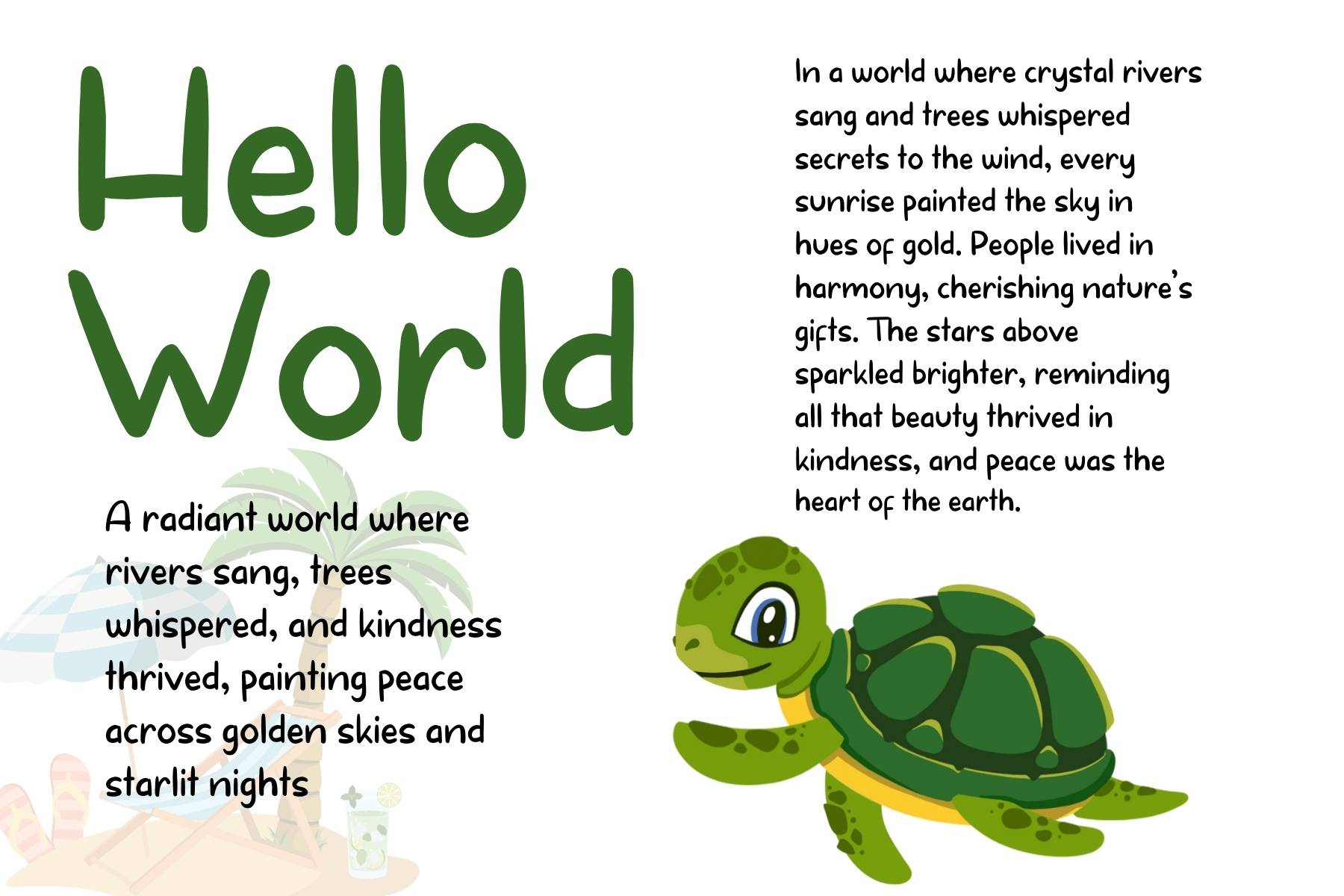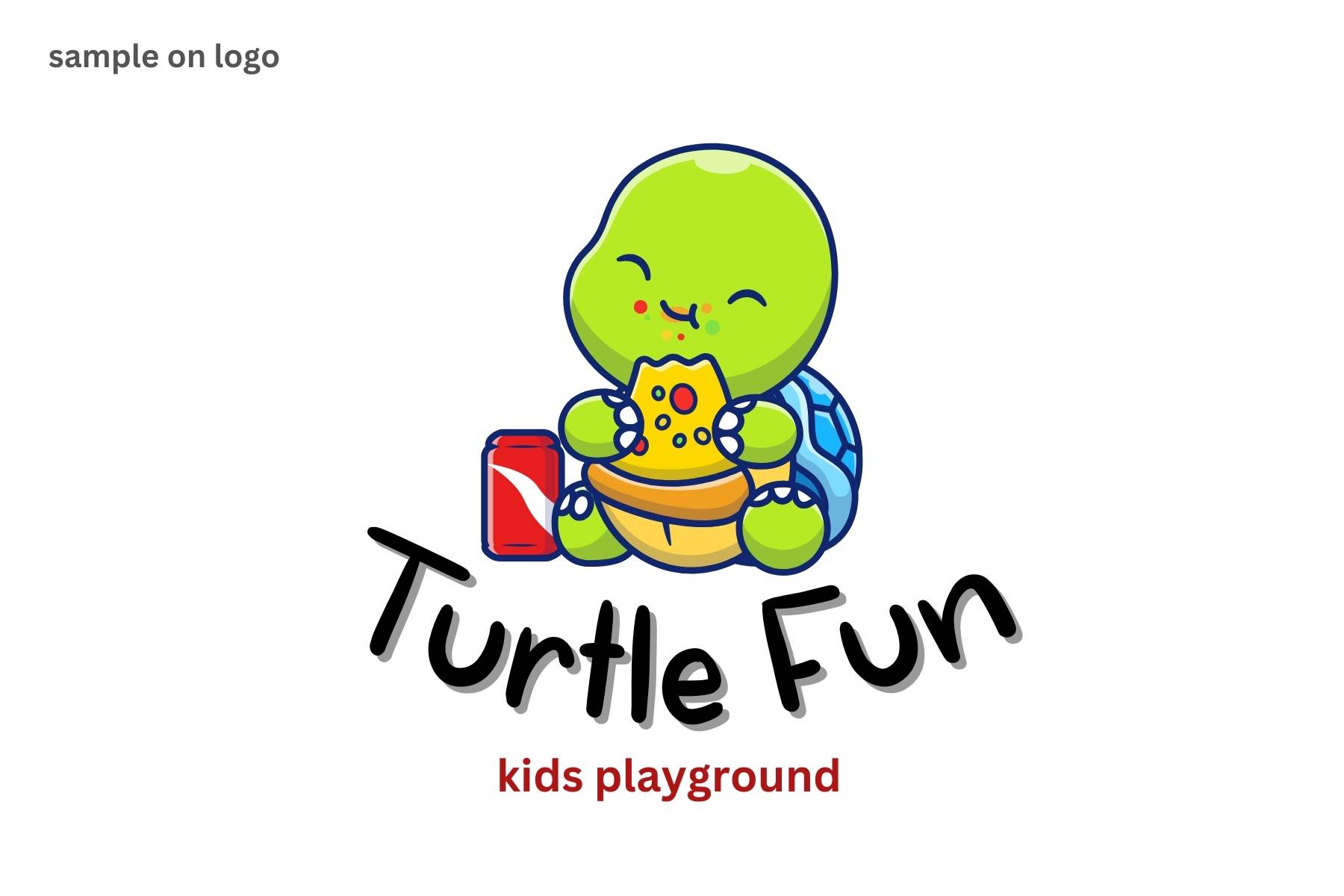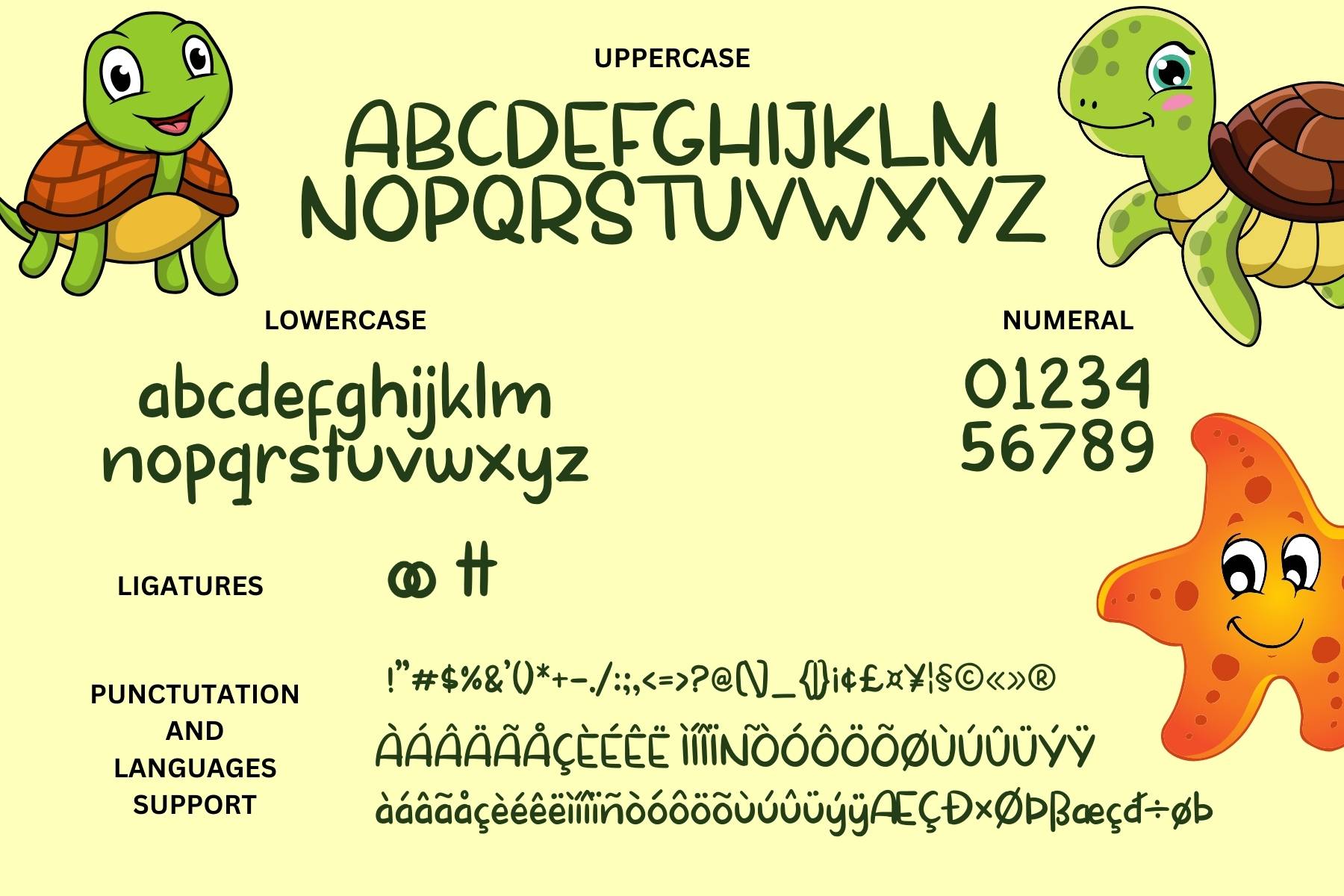
Turtle Kids
Turtle Kids is a playful and fun font designed for children. With its friendly, rounded style, it's perfect for kids' projects, storybooks, educational materials, and creative designs. Created by Senotype, this font captures the cheerful and imaginative spirit of childhood